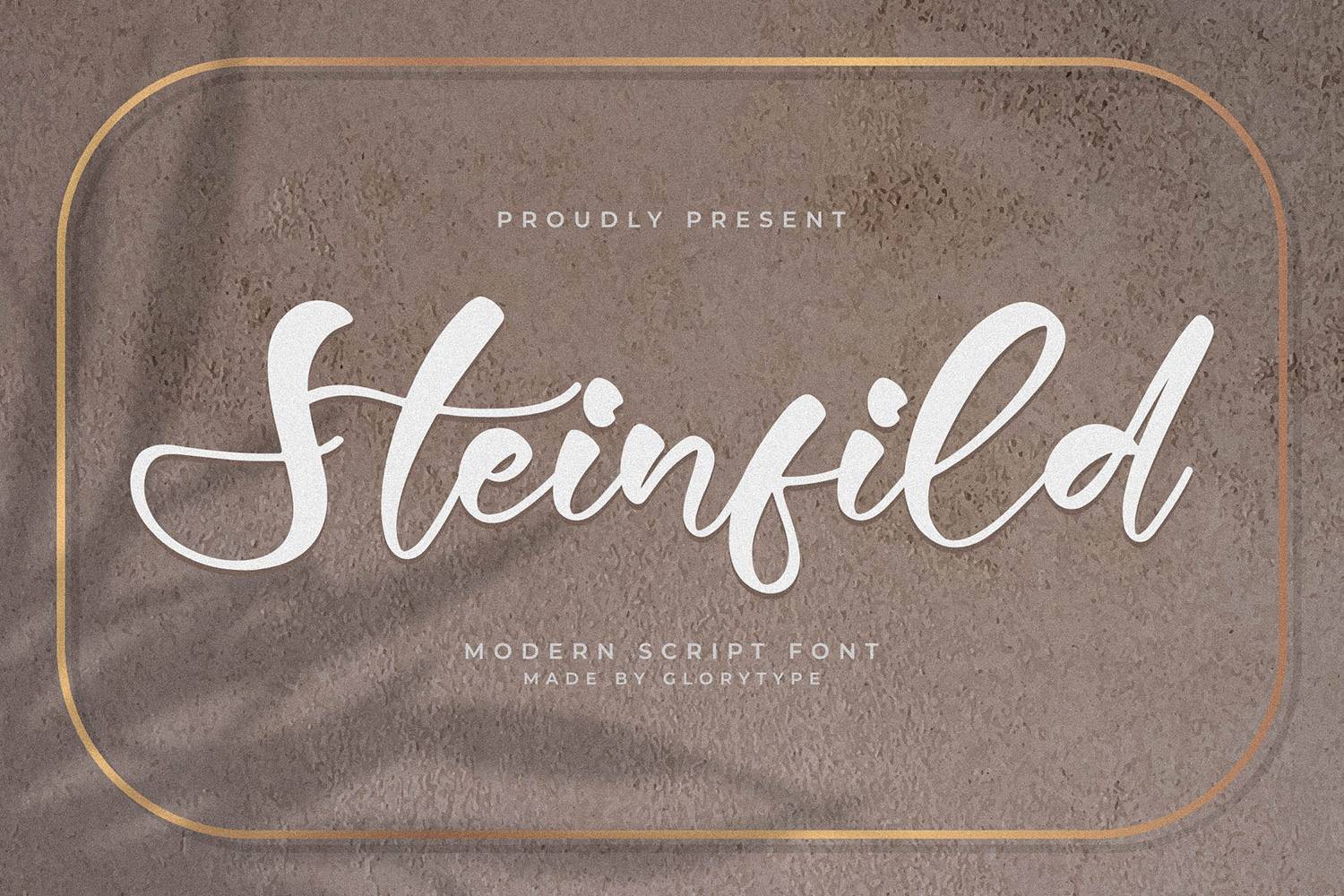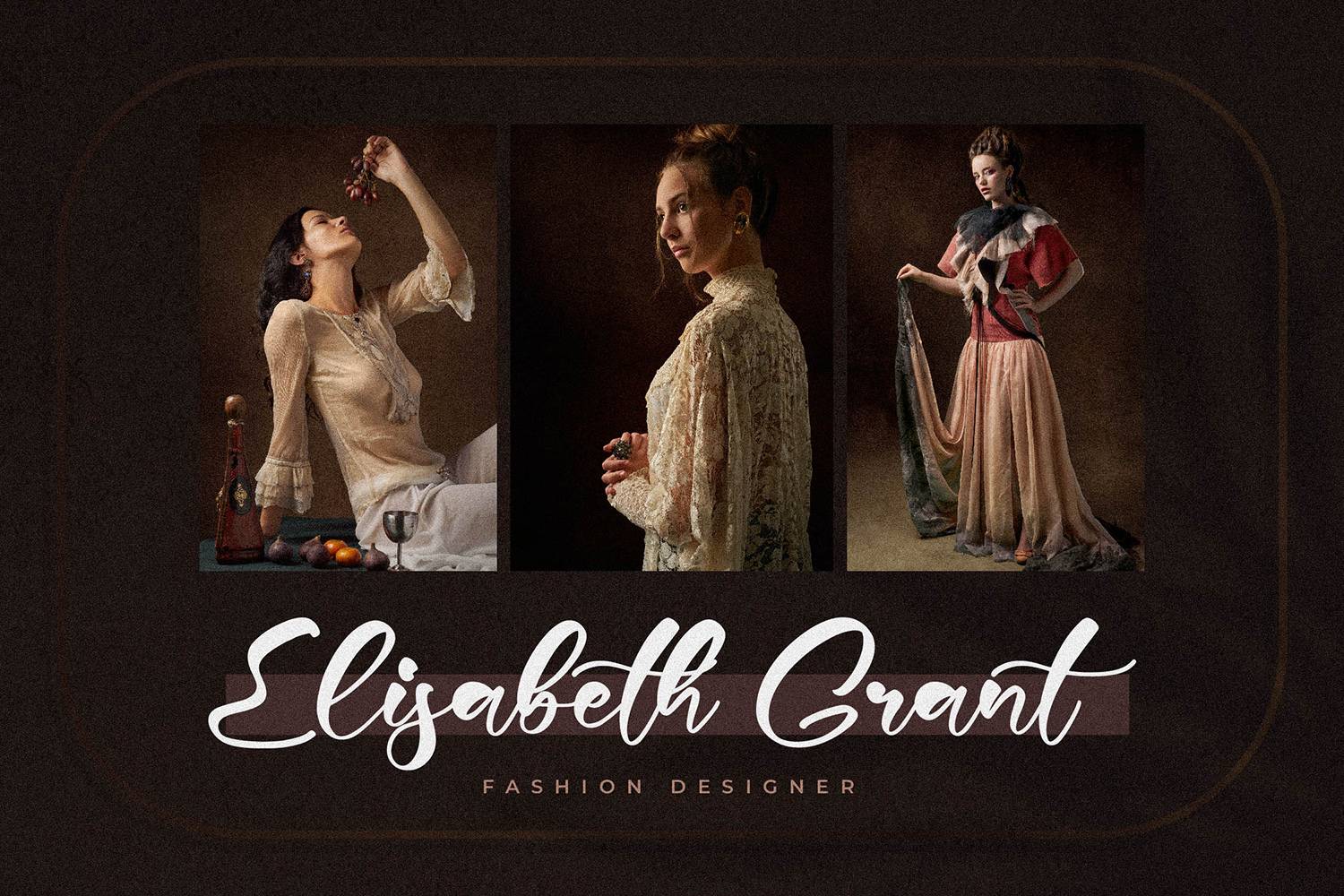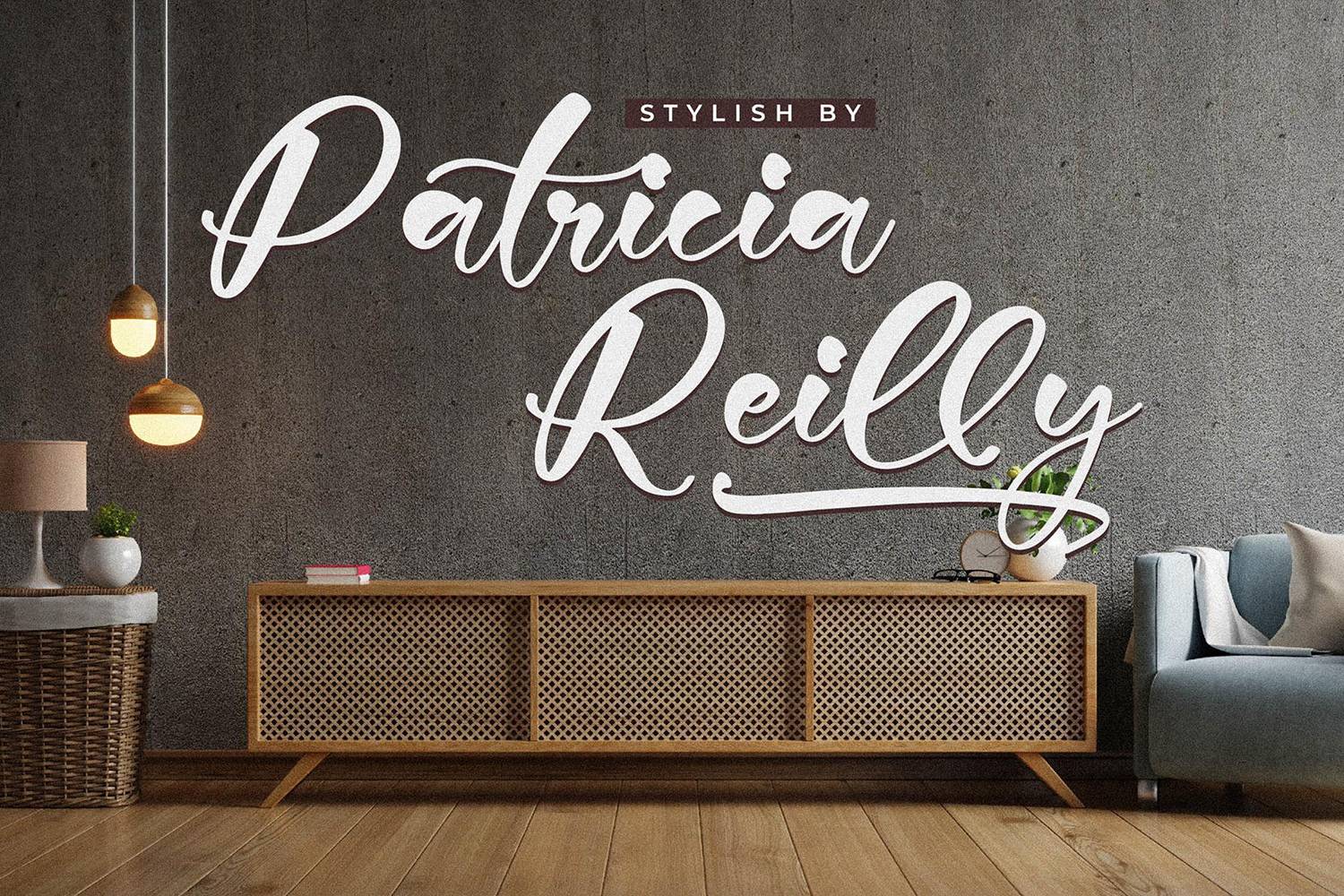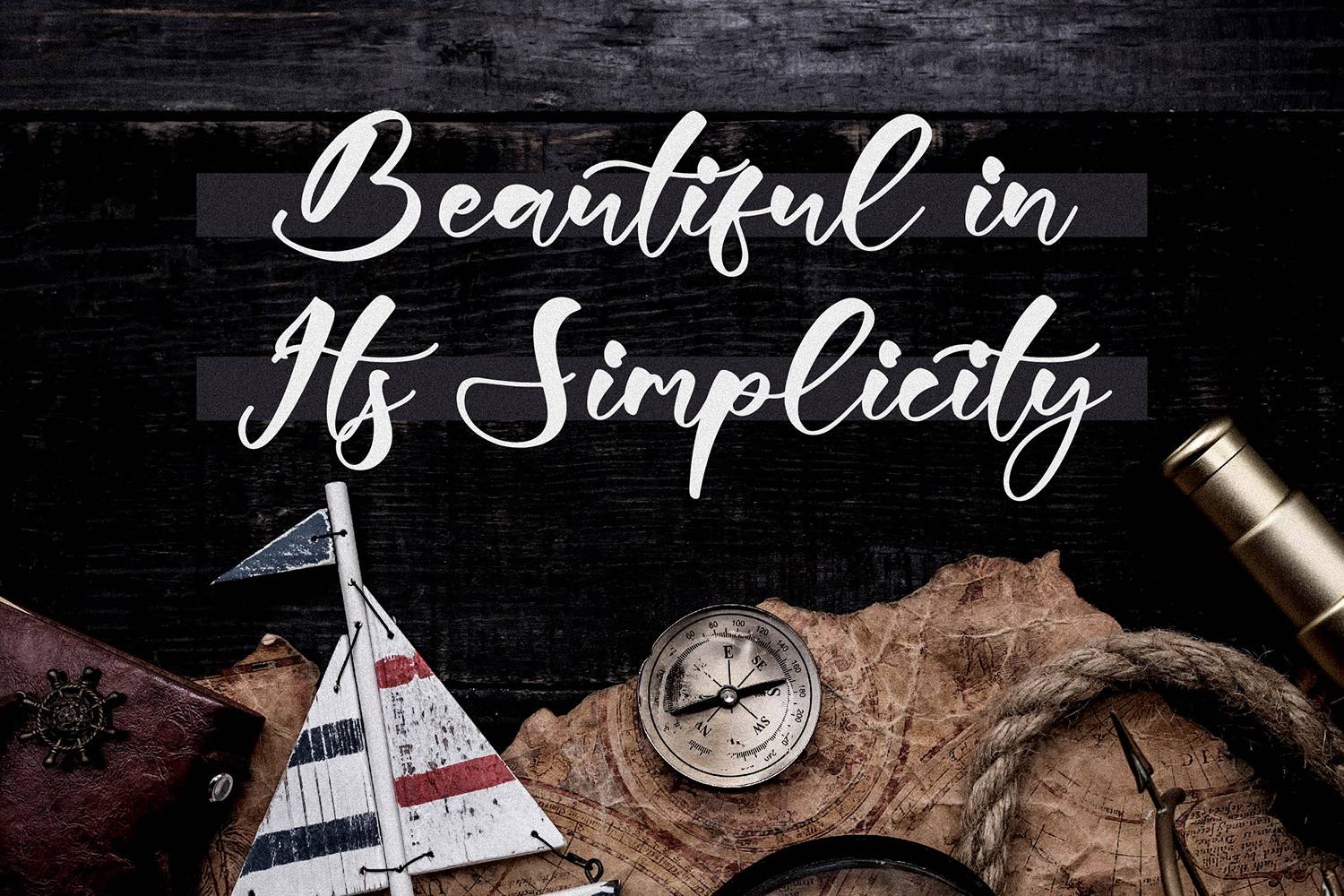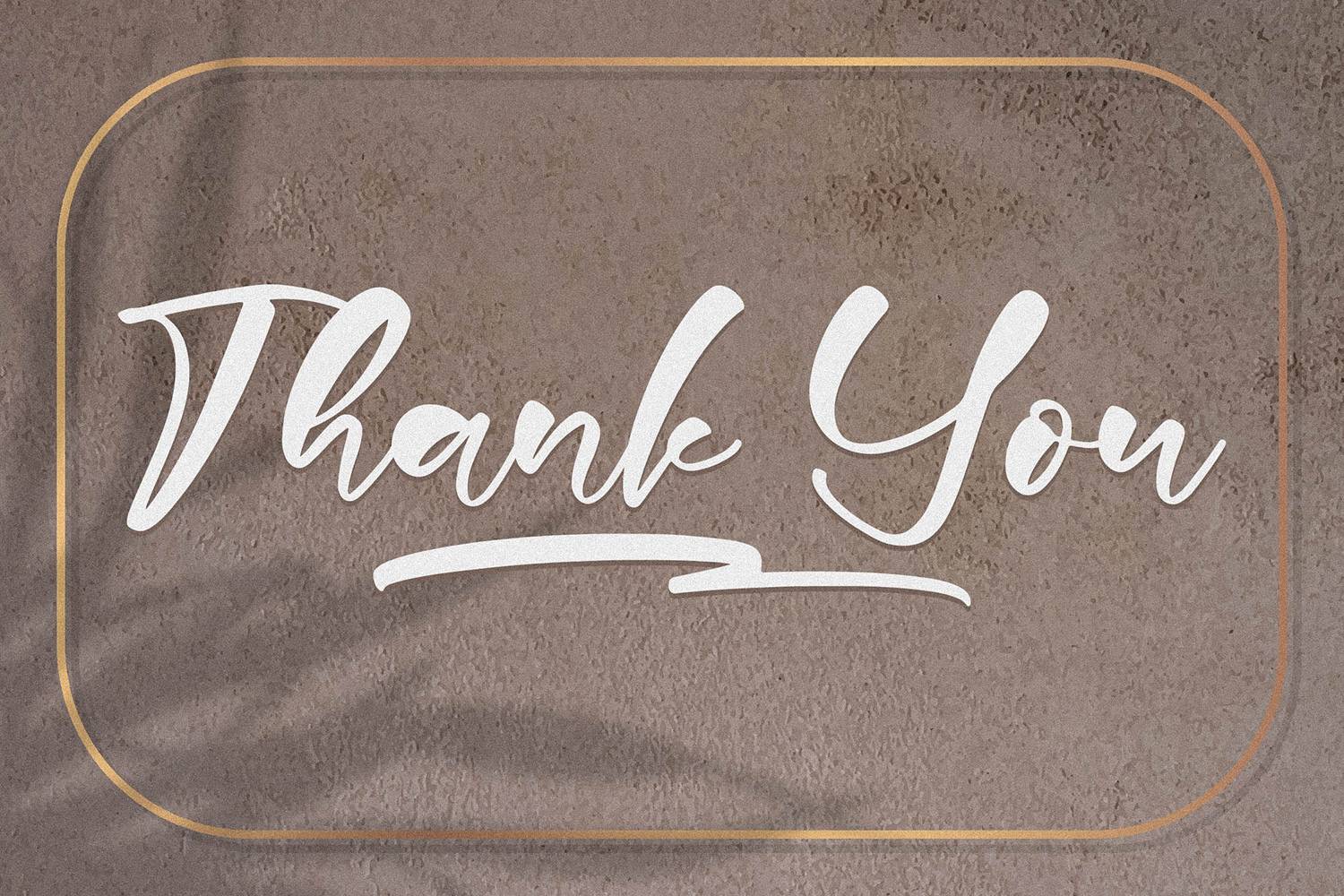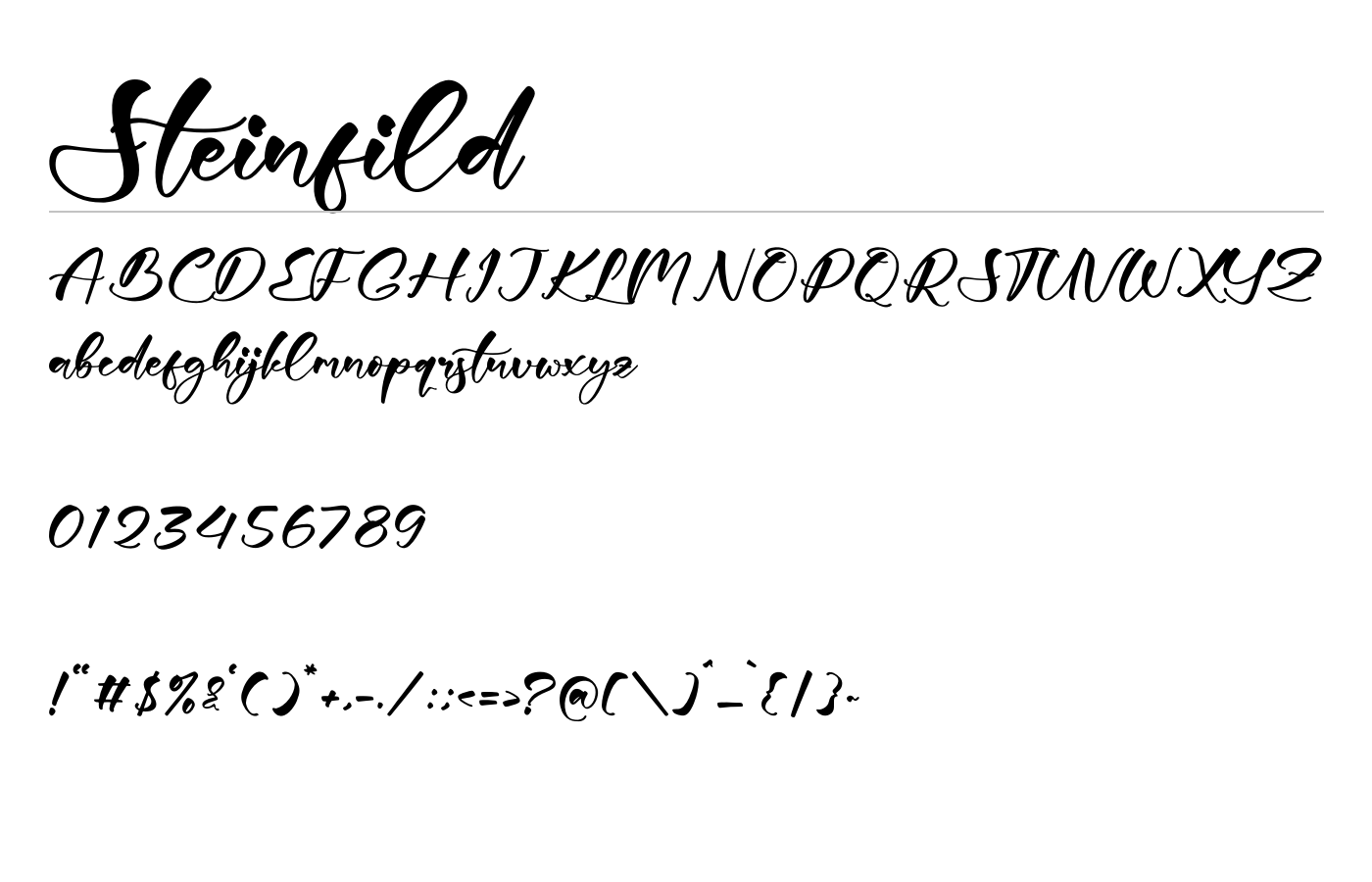
Steinfild is an elegant and flowing script font that features smooth, varied strokes with a lively, handwritten feel. Its light to medium weight and balanced letterforms make it ideal for adding a personal, sophisticated touch to invitations, branding, and creative projects. This font works beautifully in headlines and display uses where a warm, stylish personality is desired.
Steinfild Font
About Steinfild Font